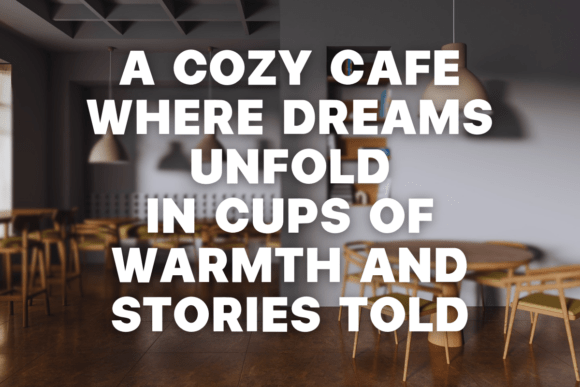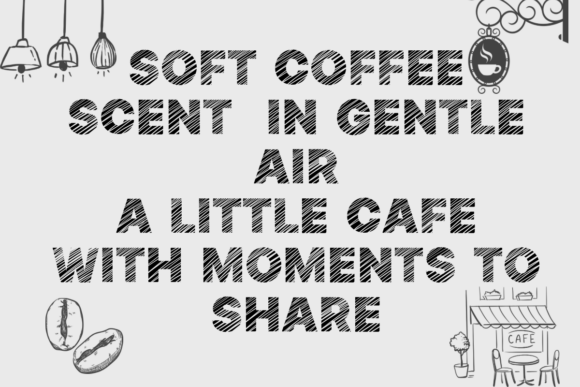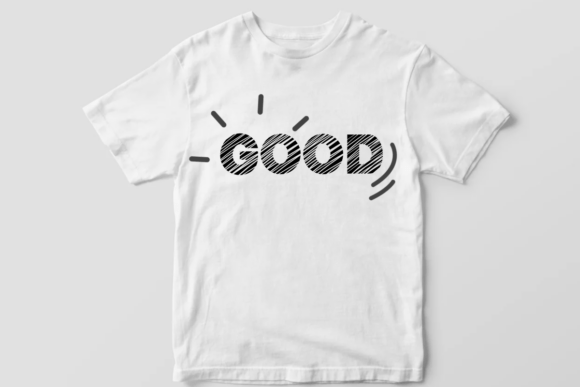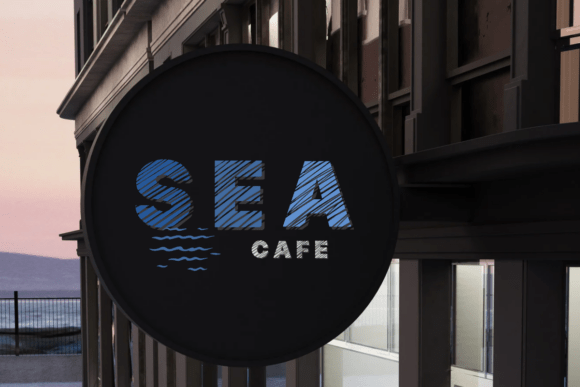
The Ultimate Café Branding Font: CAFE
Have you ever been working on a design project, and suddenly, you just can’t seem to find the right font? I recall a particularly frustrating moment when I was tasked with creating a brand identity for a trendy new café. The client wanted something bold, modern, and eye-catching, but everything I tried seemed to fall flat. That’s when I discovered the CAFE font – a game-changer for any designer looking to add a touch of contemporary charm to their work.
An Honest Review of CAFE Font
• ✨ Bold and Eye-Catching: The CAFE font is designed with stylish diagonal line hatching, giving it a strong presence that’s perfect for grabbing attention.
• ✅ Playful yet Professional: This font strikes the perfect balance between playfulness and professionalism, making it suitable for a wide range of creative projects.
• 💡 Versatile: From café branding and menu designs to packaging and shop signage, the CAFE font is incredibly versatile.
While the CAFE font is amazing, there are a few things to keep in mind:
• ⚠️ Legibility at Small Sizes: Like many decorative fonts, CAFE can become a bit tricky to read at very small sizes. It’s best used at larger sizes where its unique details can shine.
• 🤔 Overuse: Because of its bold nature, it’s easy to overuse this font. Make sure to balance it with simpler fonts to maintain readability.
The Backstory Behind CAFE Font
The CAFE font was inspired by the vibrant, bustling atmosphere of modern cafés. Its designer aimed to capture the perfect blend of style, friendliness, and approachability. The result is a font that feels both contemporary and welcoming.
Font Name Cafe Font
Author Bee piyanuch
Q: Is CAFE font suitable for body text?
A: While CAFE is stunning, it’s best used for headlines and titles due to its decorative nature. For body text, consider pairing it with a clean, readable font.
Q: Does CAFE font support OpenType features?
A: Yes, CAFE supports various OpenType features, including stylistic alternates and glyphs, which can be accessed through compatible design software.